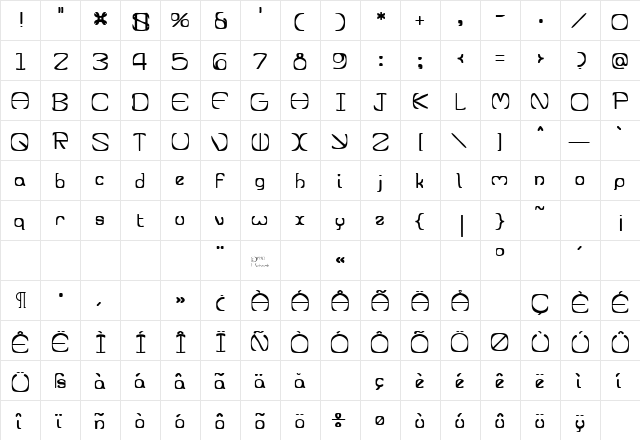
ZirkStressed Regular
Design Context for ZirkStressed Typeface
ZirkStressed is a composed and adaptable typeface that performs quietly and consistently across a wide range of design contexts.